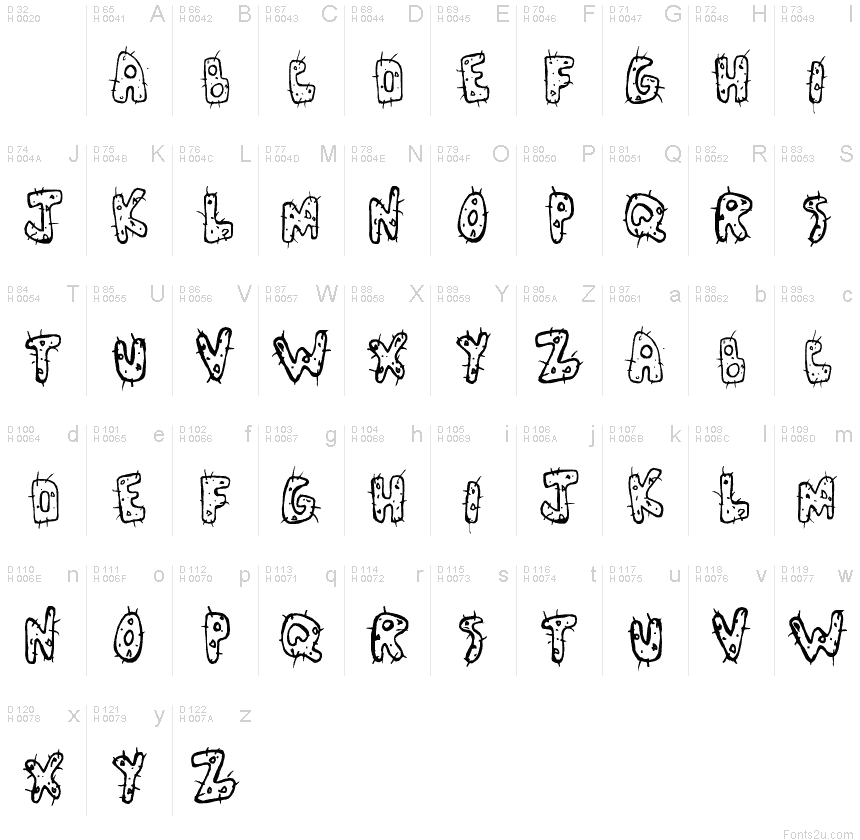
Cactus Love
Cactus Love font by Life without Taffy is a free cartoon display typeface that turns every letter into a plump, spiky cactus. The forms feel hand‑drawn and slightly wobbly, with soft curves, tiny thorns, and a squishy, inked outline that looks like it was doodled in a sketchbook. It’s bold, readable, and quirky all at once, giving your text a sunny, desert‑storybook personality without feeling messy or chaotic.
Using Cactus Love, you can bring playful texture to kids’ book covers, classroom posters, birthday invitations, stickers, gardening blogs, party decor, and social media graphics. This free font shines in big, colorful headlines; pair it with a clean sans serif for body copy to keep layouts clear and fun.